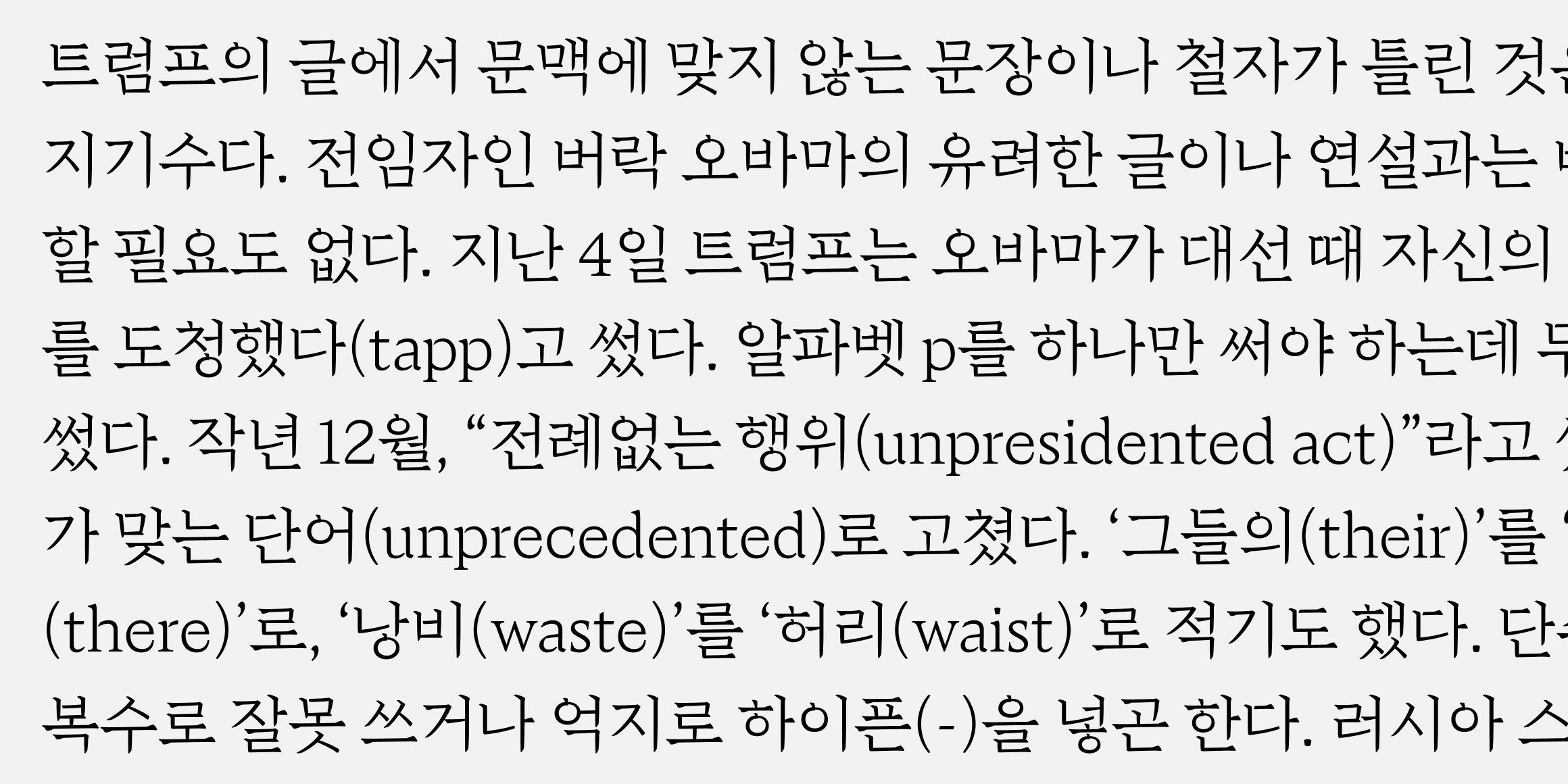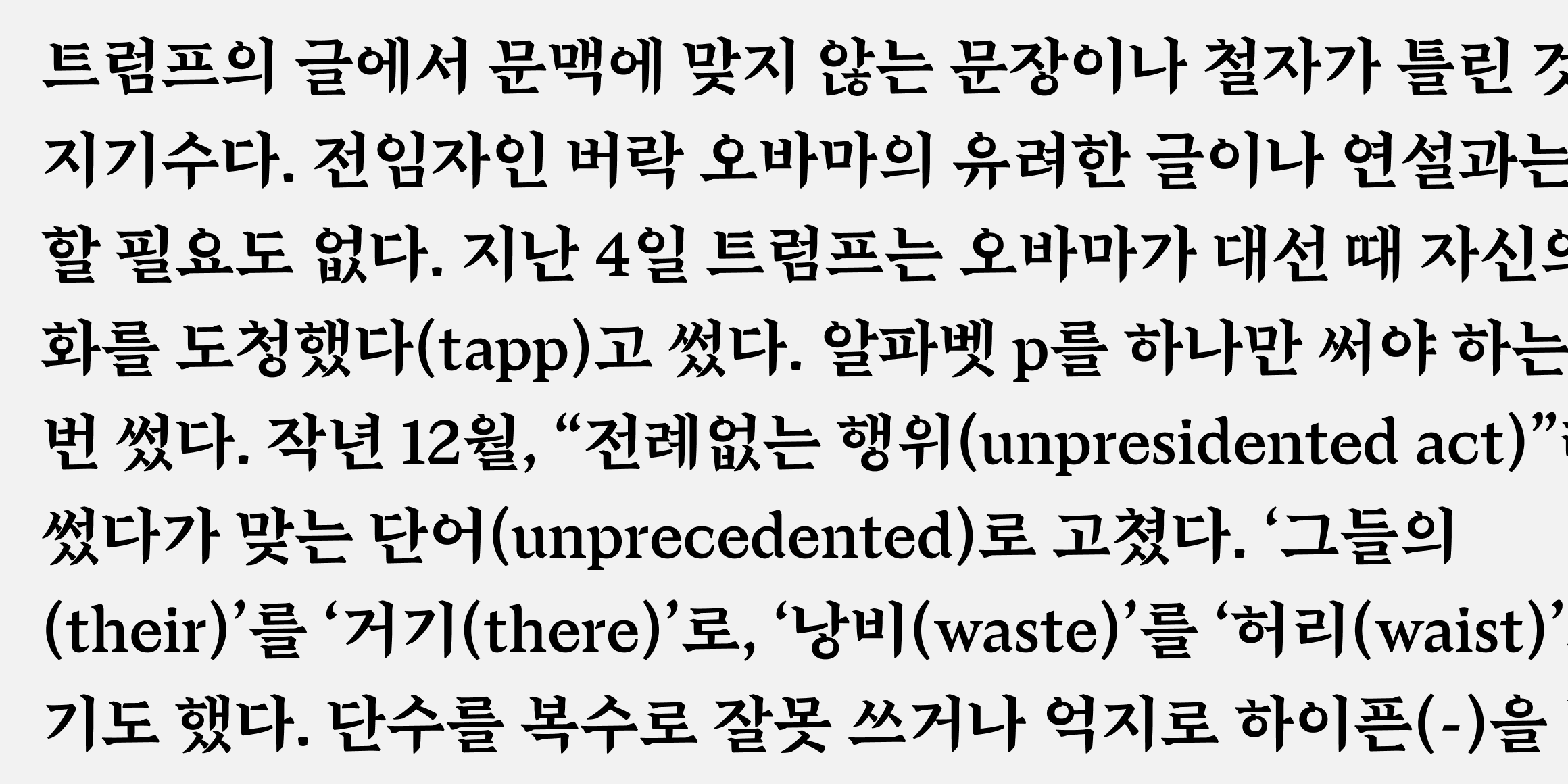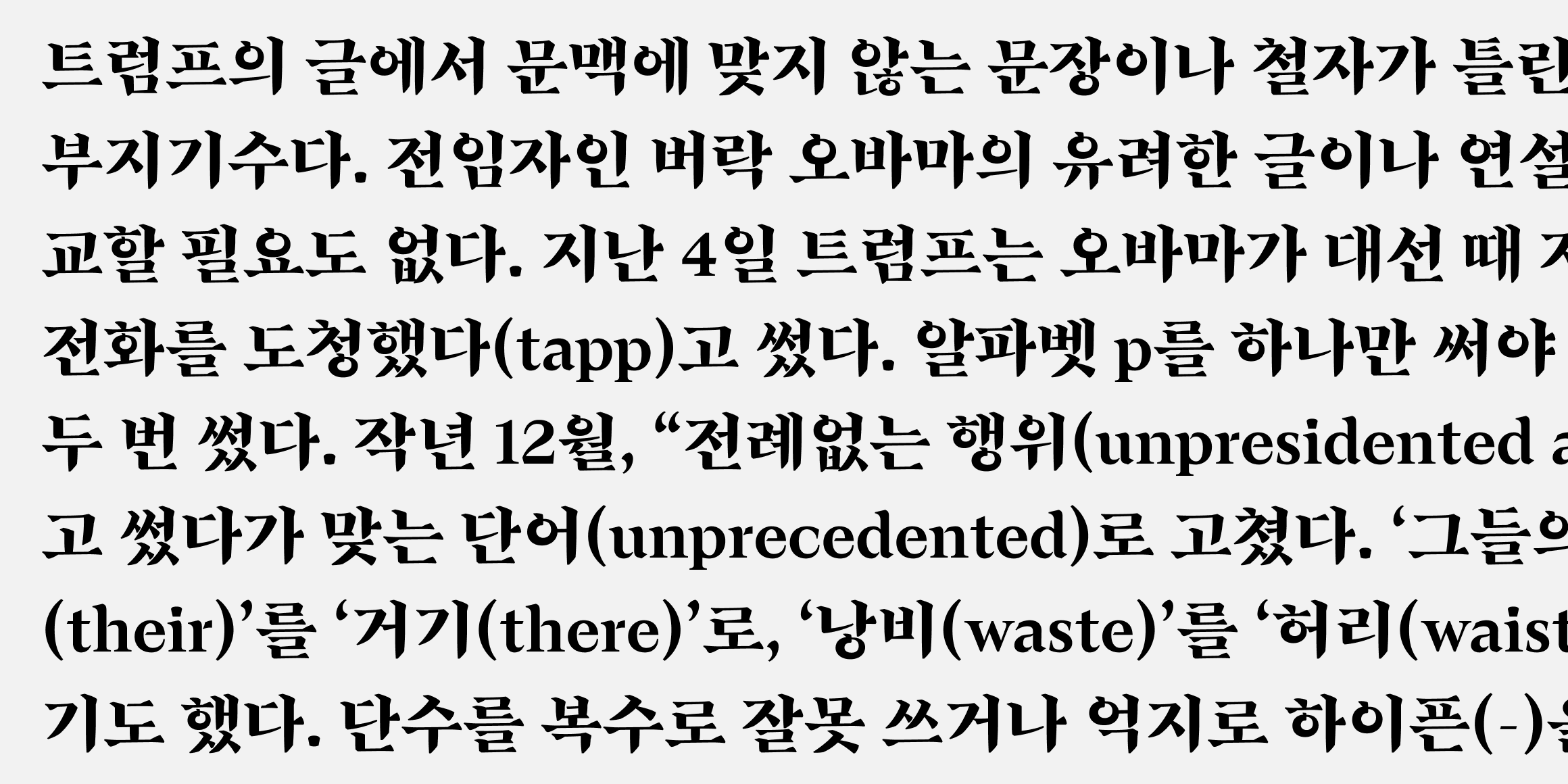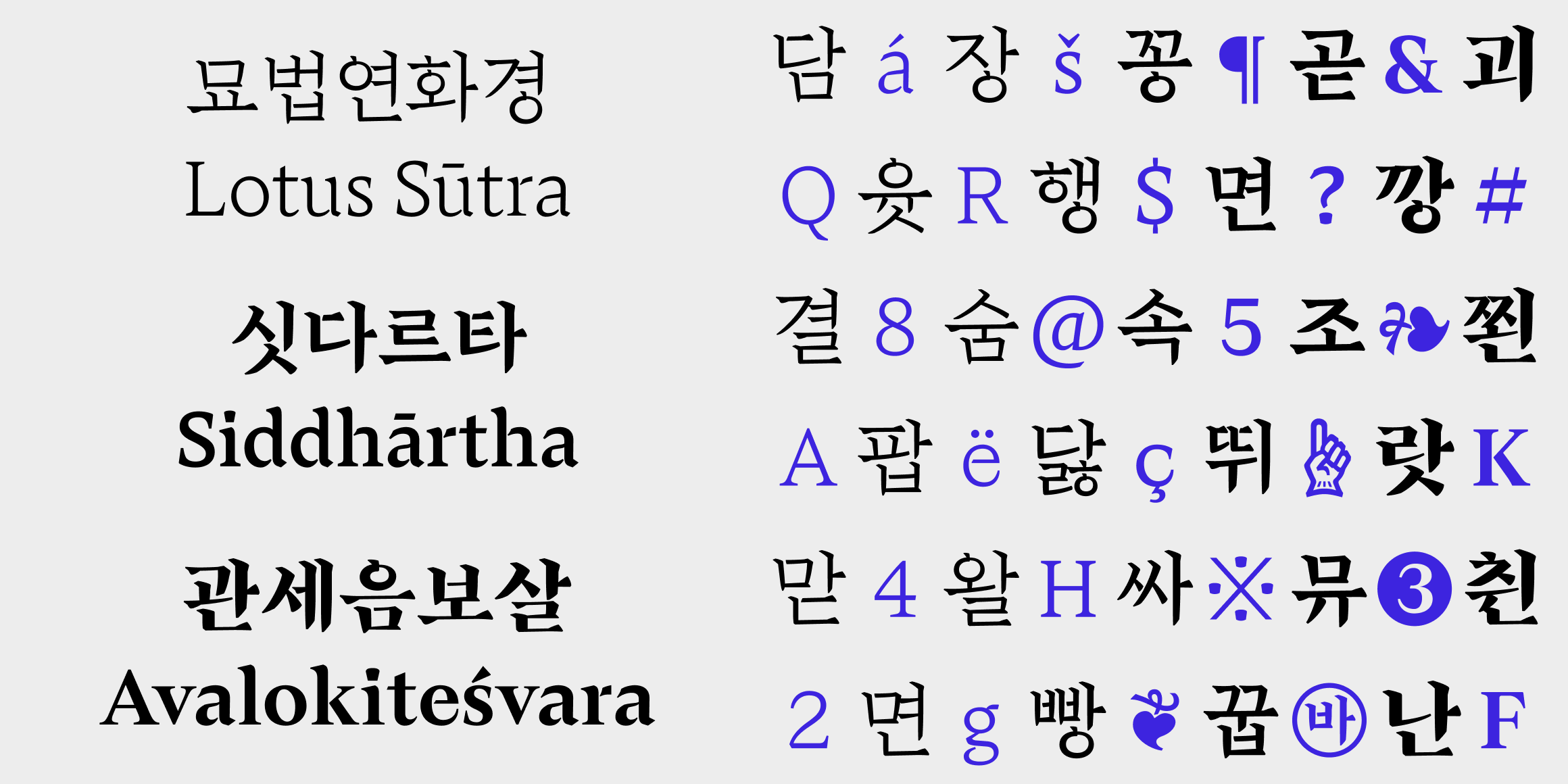
Banya(반야) is a Hangul serif typeface that blends traditional brush strokes with woodblock carving. This typeface was inspired by Buddhist scriptures, which is presumed to have been published as a woodblock print in the early 20th century. Overall, it exudes a sharp and solid feel from being carved into wood, while simultaneously conveying the delicate and unique shapes of brush strokes. For example, the shape of the letters “ieung(ㅇ)” and “yu(ㅠ)” emphasize the feeling of being written with a brush, whereas the letters “digeut(ㄷ)” and “mieum(ㅁ)” incorporate a slight stencil-like effect to highlight the carved form. Banya comes in versions ranging from Light to Bold for body text, with a Black version designed for titles. As the weight increases, the distinguishing features become more pronounced and expanded, making the details more noticeable.
Banya and Banya Mist work best as a pair, amplifying each other’s impact when used together. Discover Banya & Banya Mist—a typeface that evokes the essence of ancient script while offering a fresh, contemporary impression!